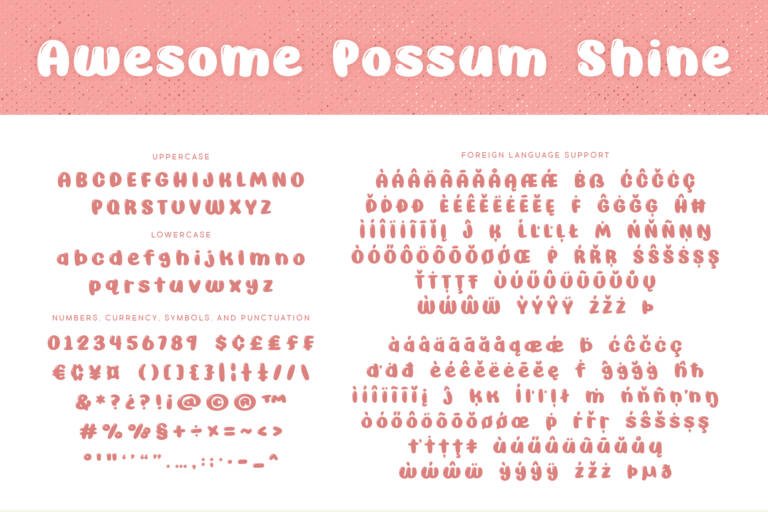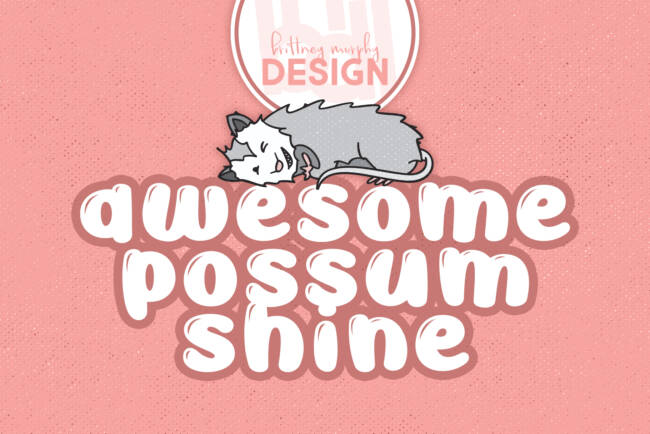
Awesome Possum Shine Font
About The Awesome Possum Shine Font
This typeface is a fun cartoon font with a shine effect from Brittney Murphy Design!
What Can you Create?
Awesome Possum has great versatility depending on the fonts it’s paired with. As the focal text, it works great as a kids cartoon style font for all kinds of packaging or logos. When used as a byline it can give your focal text some personality without being too over the top. Because of its thickness, it easily draws attention to it and remains legible even at a quick glance.